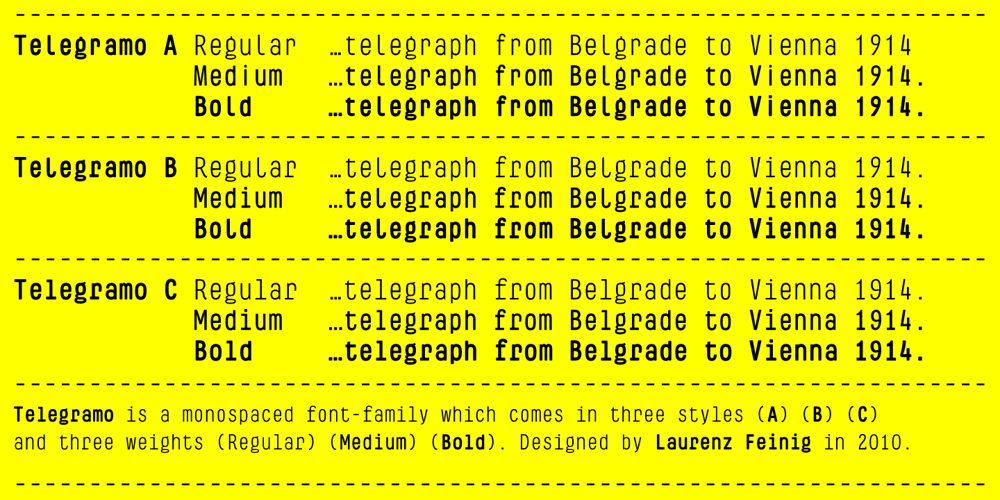
Telegramo Font Family was designed by Laurenz Feinig and published by Volcano Type. Telegramo contains 9 styles and family package options. Telegramo is modeled on a historic telegraph from Belgrade to Vienna 1914. The original archetypal character set consists of lowercase letters and numerals only. Uppercase letters and special characters were added after careful research. Contact pressure variations of the rudimentary type writing machine are directly imitated in the three weights: the regular weights edges are sharp, medium edges are rounded and the bold letters can nearly be called soft. Since the original typeface did not seem perfectly suitable for modern desktop publishing purposes, two additional stylistic sets were created for each weight, improving certain issues in rhythm, legibility and quirkiness.